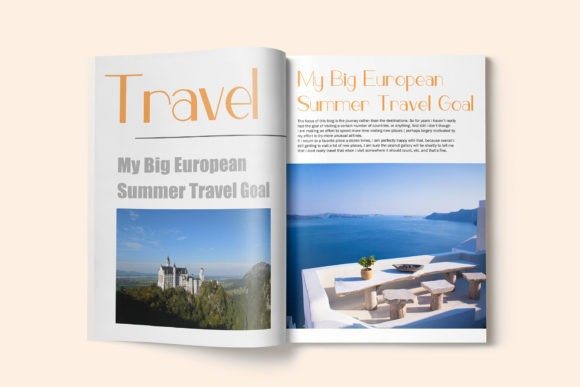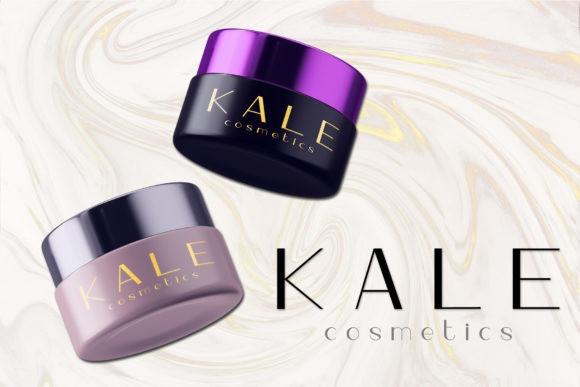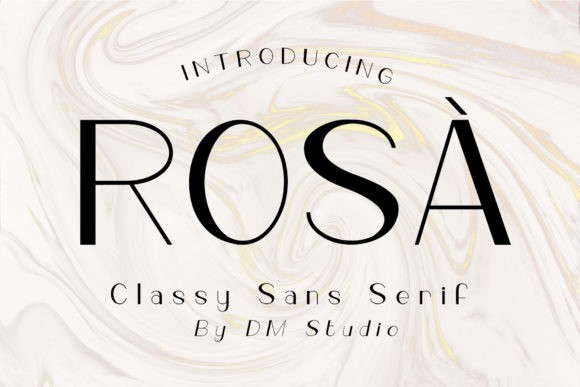
Rosa Sans Font
Rosa Sans Font, is a beautifully light and delicate sans serif font with a modern feel. This unique font will add a luxurious touch to a big variety of design projects!